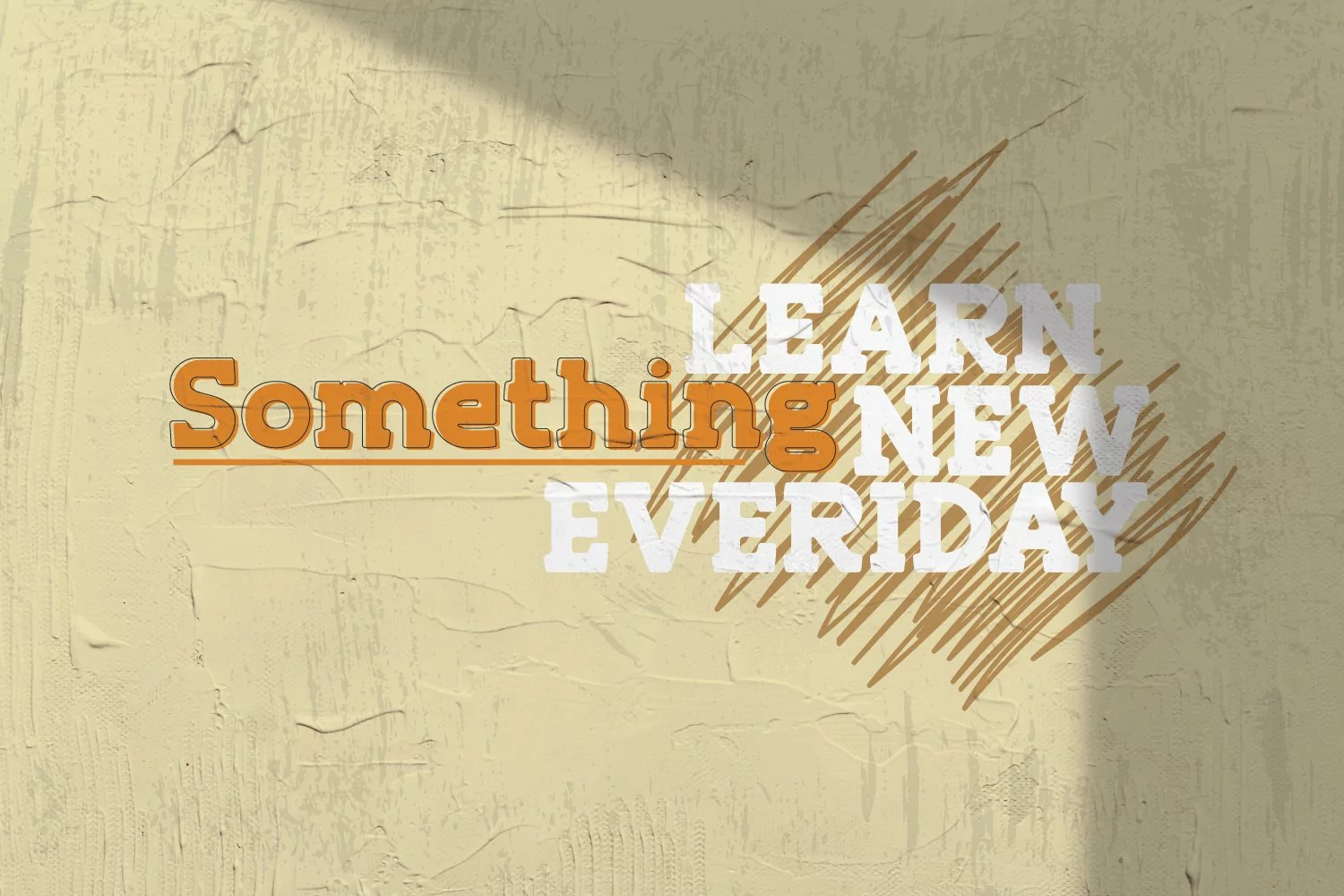
Mount is Modern Slab Serif Font
Mount is a bold slab-serif font for titling, captions and logo. this font is similar to Simple Note font, but it comes in round and rough shapes.
1. Upper and Lowercase characters
2. Multilingual Support (Latin Western Europe)
3. Numbers and Punctuation